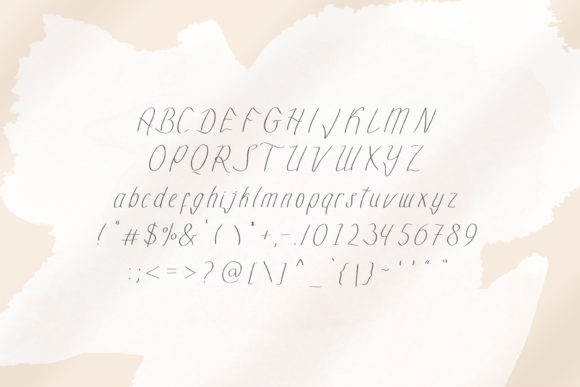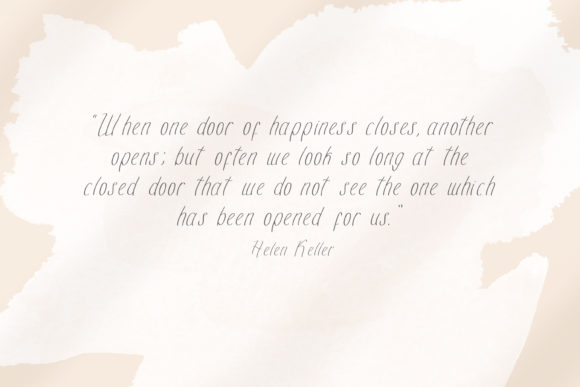
Introduction to Mazurski Font
Remember that moment when you’re brainstorming ideas for a new project and the perfect font suddenly pops into your head, elevating the entire design? For designers, finding the right font can be a game-changer. It’s what turns a simple logo into a stunning visual representation of your brand’s personality.
Enter the charming Mazurski Font, a delightful addition to any designer’s toolkit. This adorable, handwritten font boasts a clean and quirky charm that’s sure to capture attention. Whether you’re working on a social media campaign, a crafty DIY project, or simply looking to revamp your brand’s visual identity, Mazurski Font is a valuable resource to have at your disposal.
With its friendly feel and versatility, Mazurski Font is the perfect design resource for creative projects that require a touch of personality. From logos to branding materials, this font is a high-quality addition to any design arsenal.
Key Features of Mazurski Font
- Features a unique, hand-drawn style with intricate details, making it perfect for artistic and creative projects.
Honest Review: Mazurski Font
I recently stumbled upon the Mazurski Font and I must say it’s a fantastic addition to any designer’s toolkit. The high quality of this font makes it a great design resource for any creative project.
- Unique and elegant design that sets it apart from other fonts
- Highly versatile and can be used for a variety of projects, from business cards to magazine layouts
- May not be suitable for projects requiring a bold, sans-serif font
- Limited font sizes and styles may limit its use in complex designs
Overall, I’m impressed with the Mazurski Font. It’s a great addition to any designer’s arsenal and I highly recommend it for any creative project. Its unique design and high quality make it a standout among other fonts, and its free download makes it easily accessible to designers of all levels.
Mazurski Font is commonly used for a variety of creative projects, including: branding, logos, and packaging design. The font’s unique design and transparent background make it a versatile choice for designers.
Tips for Getting the Most Out of Mazurski Font
To get the most out of Mazurski Font, use it in combination with other high-quality design elements, such as images and graphics. This will help to create a cohesive and visually appealing design. Additionally, experiment with different font sizes and styles to add depth and interest to your design.